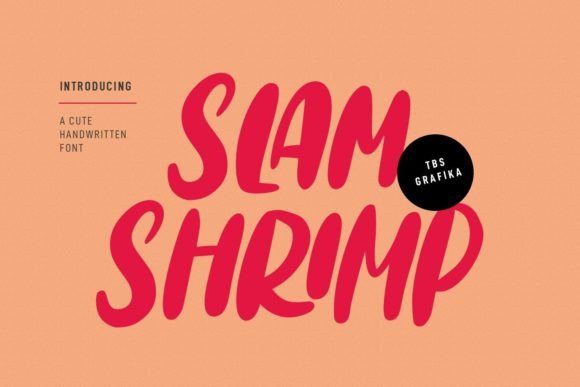
Unleash your creativity with Slamshrimp Font, a playful and captivating handwritten font that adds a touch of whimsy to your digital designs. Specially crafted to enhance the aesthetics of display text, Slamshrimp Font is an exceptional choice for creating eye-catching headlines, logos, social media graphics, and more. Its elegant curves and lively strokes bring a unique charm to your designs, making them stand out from the crowd.
Dive into a world of infinite possibilities with Slamshrimp Font. Whether you're designing a whimsical poster, a playful invitation, or an enchanting social media post, this font will effortlessly transform your words into works of art. Its versatility extends across a wide range of projects, from personal to professional, allowing you to express your individuality and creativity in every aspect of your digital creations.
With Slamshrimp Font, you'll be amazed at how effortlessly it elevates the overall impact of your designs. Its carefully crafted characters exude a sense of joy and playfulness, captivating your audience and leaving a lasting impression. Embrace the power of this extraordinary font and witness the transformation of your designs into captivating masterpieces.